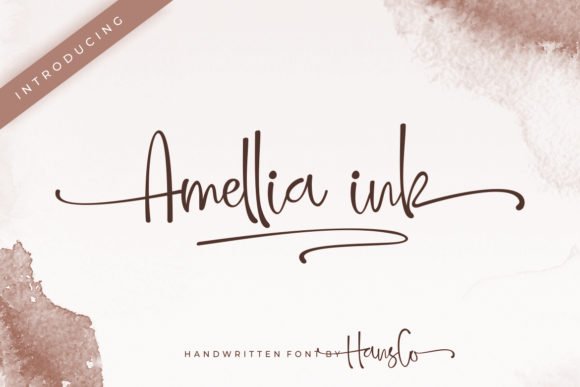
Unlock the Artistic Potential of Amellia Ink Font
As designers, we’ve all had those ‘aha’ moments when a single font can elevate an entire design from bland to grand. For me, it was when I stumbled upon the Amellia Ink Font – a beautiful, elegant, and natural handwritten font that instantly made my creative juices flow. Its organic feel and delicate strokes transport you to a world of serenity, perfect for crafting logos, watermarks, branding, wedding invitations, quotes, or anything else you wish to design.
With Amellia Ink Font, you’ll have the versatility to create stunning designs that capture the essence of your brand. Its PUA encoded feature allows you to access all the glyphs and swashes with ease, making it a valuable asset for designers who crave creativity and precision. Whether you’re a seasoned pro or a budding designer, Amellia Ink Font is sure to be your new go-to companion for crafting timeless and breathtaking designs.
Amellia Ink Font Key Features
- Font Family: Amellia Ink, Amellia Ink Italic, Amellia Ink Bold, Amellia Ink Bold Italic
- Character Count: 750+ glyphs, including Latin, Cyrillic, and Greek alphabets
- Unique Characteristics: Hand-drawn, elegant, and cursive script with subtle flourishes and ink-like texture
Amellia Ink Font Review
I recently had the chance to work with the Amellia Ink font, and I must say it’s a unique addition to any design project. ✨ The font’s elegant script style is perfect for creating a sophisticated and modern look. The flowing lines and subtle connections between letters add a touch of sophistication, making it ideal for invitations, wedding stationery, or luxury branding.
One of the standout features of Amellia Ink is its versatility. ✨ It can be used in both digital and print formats, making it a great option for designers who need a font that can adapt to different mediums. The font also comes in a range of weights, from light to bold, giving designers plenty of options to experiment with.
While Amellia Ink is a great font, there are some limitations to consider. ⚠️ One of the main drawbacks is its limited character set. This means that designers may need to use additional fonts to access a wider range of characters, which can be a hassle. Additionally, the font may not be suitable for body text, as it can be difficult to read in smaller sizes.
Overall, I’m impressed with the Amellia Ink font. ✨ While it may have some limitations, its unique style and versatility make it a valuable addition to any designer’s toolkit. Whether you’re working on a high-end branding project or creating a special invitation, Amellia Ink is definitely worth considering.
- Unique script style with elegant flowing lines
- Versatile font suitable for digital and print formats
- Range of weights from light to bold
- Limited character set may require additional fonts
- May not be suitable for body text in smaller sizes
To achieve the best results, use Amellia Ink in conjunction with bold or italic text to add emphasis and create visual interest. Experiment with layering and combining different font styles to create a unique design.
Use Amellia Ink in combination with other design elements, such as images and shapes, to create visually appealing compositions. Experiment with different font sizes and styles to create hierarchy and balance in your design.
Use Amellia Ink in headings and subheadings to create a clear visual hierarchy and add emphasis to important information. Experiment with different font sizes and styles to create visual interest and engage your audience.
Alternatives to Amellia Ink Font
Great Vibes Font is a beautiful, elegant script font that is perfect for creating a sophisticated and luxurious feel. It is ideal for use in branding, advertising, and packaging designs. This font is more refined and polished than Amellia Ink Font, making it suitable for high-end projects.
Comparison: Great Vibes Font has a more refined and polished look compared to Amellia Ink Font, making it more suitable for luxury brands. However, Amellia Ink Font has a more rustic and vintage feel that may be more appealing to some designers.